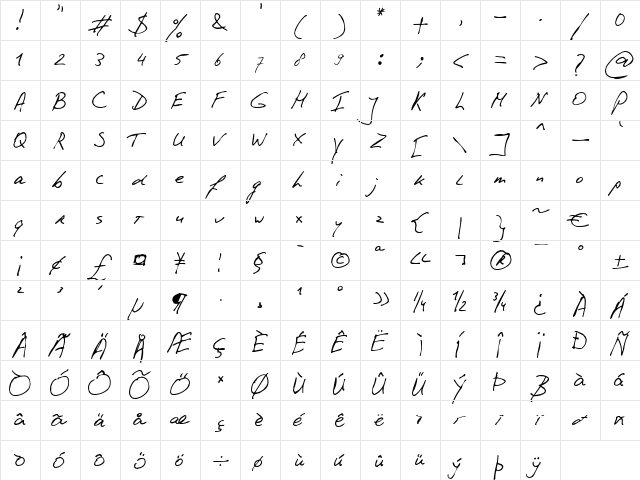
PhontPhreak's Handwriting Regular
Design Context for PhontPhreak's Handwriting Typeface
PhontPhreak's Handwriting flows with the natural rhythm of handwritten lettering, making it ideal for designs that call for warmth and personal expression.
Font Pairing: Combine PhontPhreak's Handwriting with a simple geometric sans for maximum contrast — the tension between flowing curves and clean structure is a classic typographic pairing.
Pro Tip: Use PhontPhreak's Handwriting for short runs of text — names, titles, or taglines. Extended body copy in script faces tires the eye quickly.